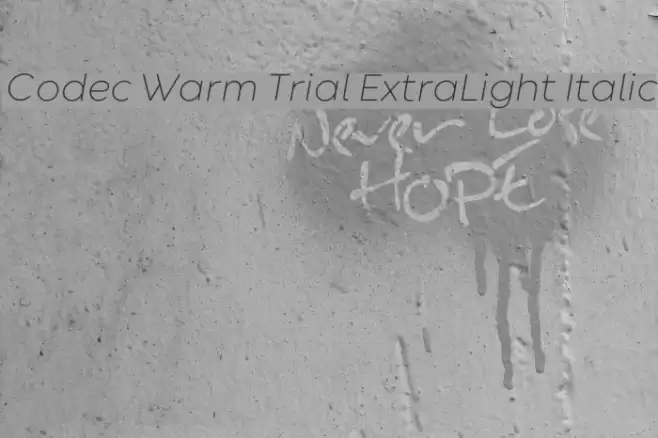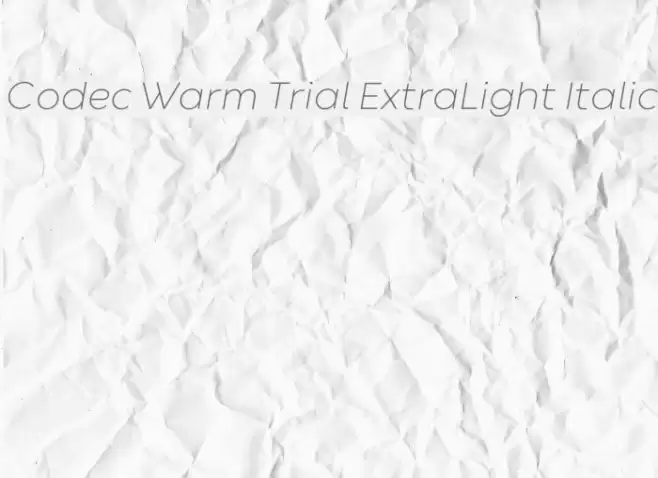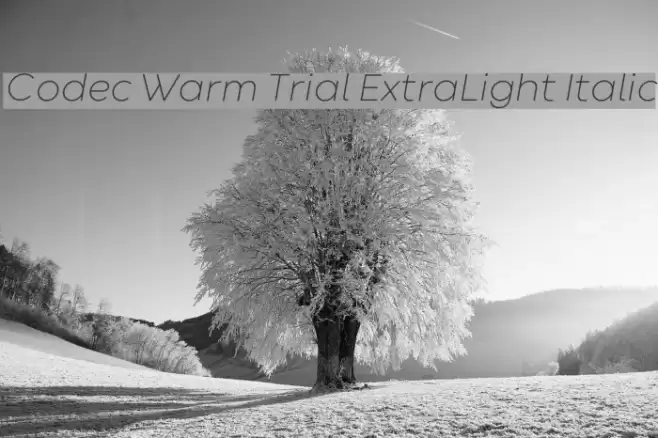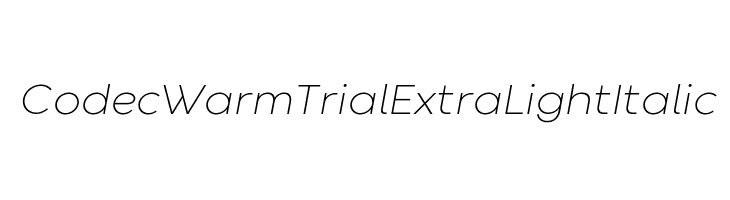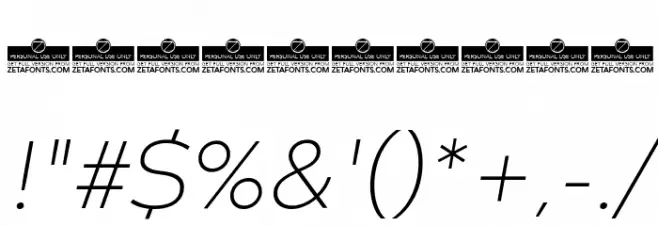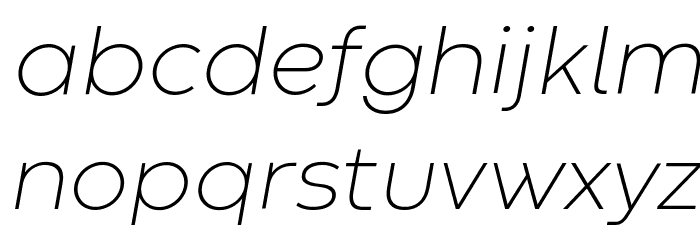
Codec Warm Trial ExtraLight Italic Font
Codec Warm Trial ExtraLight Italic Description
This typeface features a sleek and elegant design with a modern touch. The characters are crafted with an extra light weight, giving them a delicate and airy appearance. The italic style adds a sense of motion and fluidity, making it ideal for dynamic and contemporary designs. The letters are slightly slanted, enhancing the overall aesthetic appeal. The clean lines and minimalistic approach make it versatile for various applications. The font maintains a consistent stroke width, contributing to its refined and sophisticated look. It is well-suited for projects that require a touch of elegance and modernity.
A sleek, extra light italic typeface with a modern and elegant design from Uncategorized fonts.
- Proposed Projects: Ideal for fashion magazines, modern branding, elegant invitations, and minimalist web design.